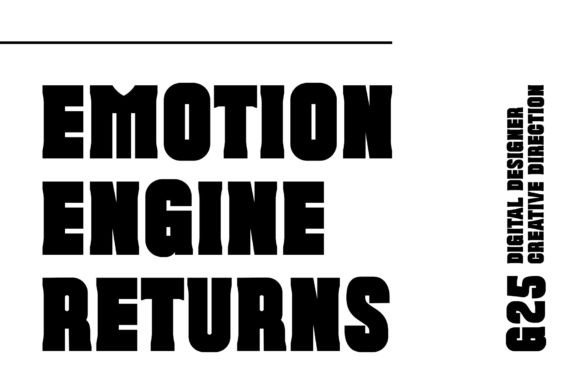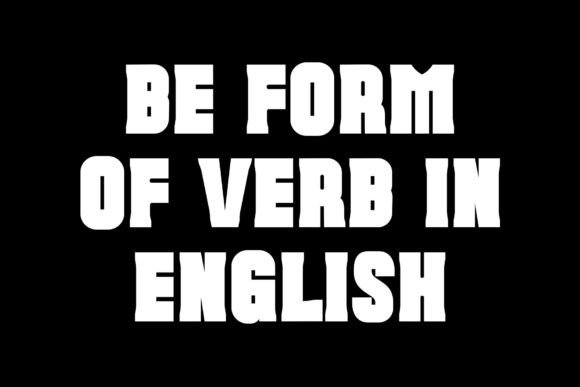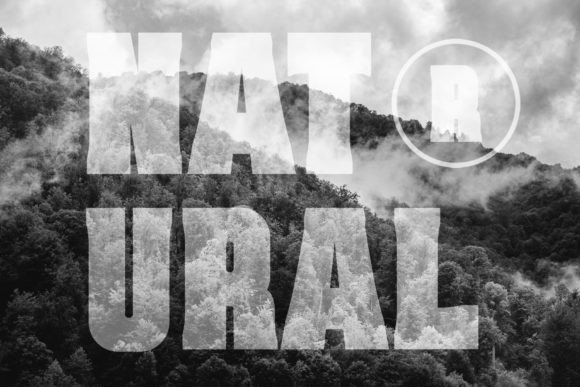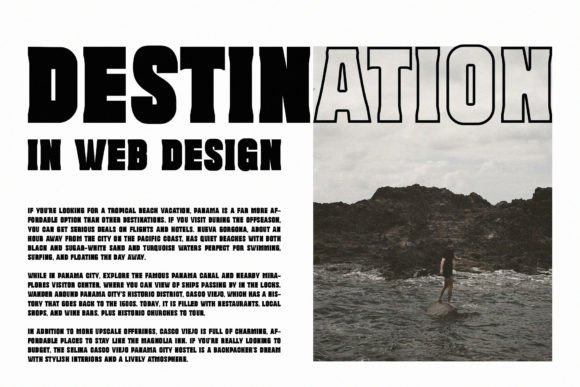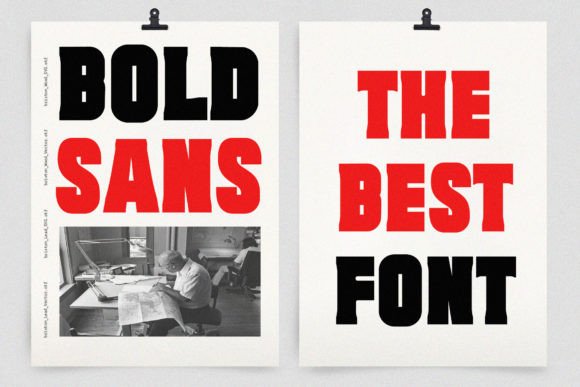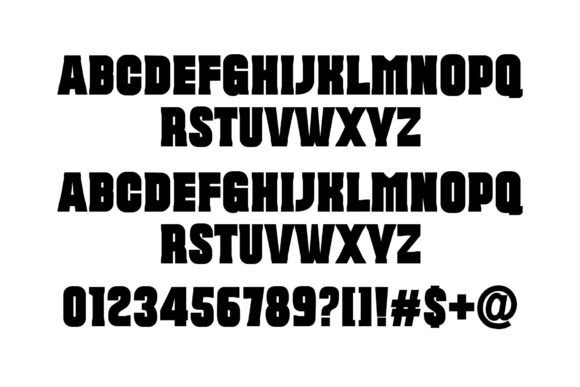
Introduction to Hongki Font
Have you ever stumbled upon a beautiful design and wished you could recreate it instantly? Maybe it was a stunning logo, a romantic invitation, or a breathtaking quote. For designers, this is a common creative conundrum – the perfect idea strikes, but the time-consuming process of finding the right font, adjusting the design, and tweaking the details can be overwhelming. This is where Hongki Font comes to the rescue, offering a high-quality, versatile design resource that can breathe new life into your creative projects.
With its unique, modern shape and natural writing style, Hongki Font is an ideal choice for a wide range of applications, from branding and web design to editorial prints, crafts, and quotes. And the best part? It’s available for free download, complete with a transparent background, making it a valuable asset for any designer looking to elevate their designs with a touch of elegance and sophistication.
Key Features of Hongki Font
• High-quality, professional font design ideal for creative projects.
• Unique characteristics include a modern, sleek design aesthetic and a wide range of font styles and weights.
Honest Review: Hongki Font
As a designer, I’m always on the lookout for high-quality design resources to enhance my creative projects. The Hongki Font has caught my attention, and I’d love to share my honest review.
What works well: ✨ The Hongki Font offers a wide range of styles and weights, making it perfect for various design applications. The font is well-designed and highly legible, which is essential for clear communication in any creative project. I appreciate that it’s available for free download, making it an excellent addition to any design library.
One notable feature is the transparent background option, which allows for seamless integration with various design elements. This flexibility makes it easy to use the Hongki Font in different design scenarios.
However, there are some limitations to consider: ⚠️ The font might not be as versatile as some other popular fonts on the market. Additionally, some users might find the font’s style a bit too modern or trendy, which may not appeal to those who prefer more classic designs.
Overall impression: I’m impressed with the Hongki Font’s design quality and the value it offers. While it may not be perfect for every design project, it’s an excellent resource for those seeking a modern and stylish font. I recommend giving it a try and exploring its various styles and weights.
• Wide range of styles and weights
• Highly legible and well-designed
Tips for Getting the Most Out of Hongki Font
Hongki Font is perfect for a variety of creative projects, including logos, business cards, brochures, and presentations. Its unique design and high-quality look make it ideal for businesses and individuals looking to stand out from the crowd.